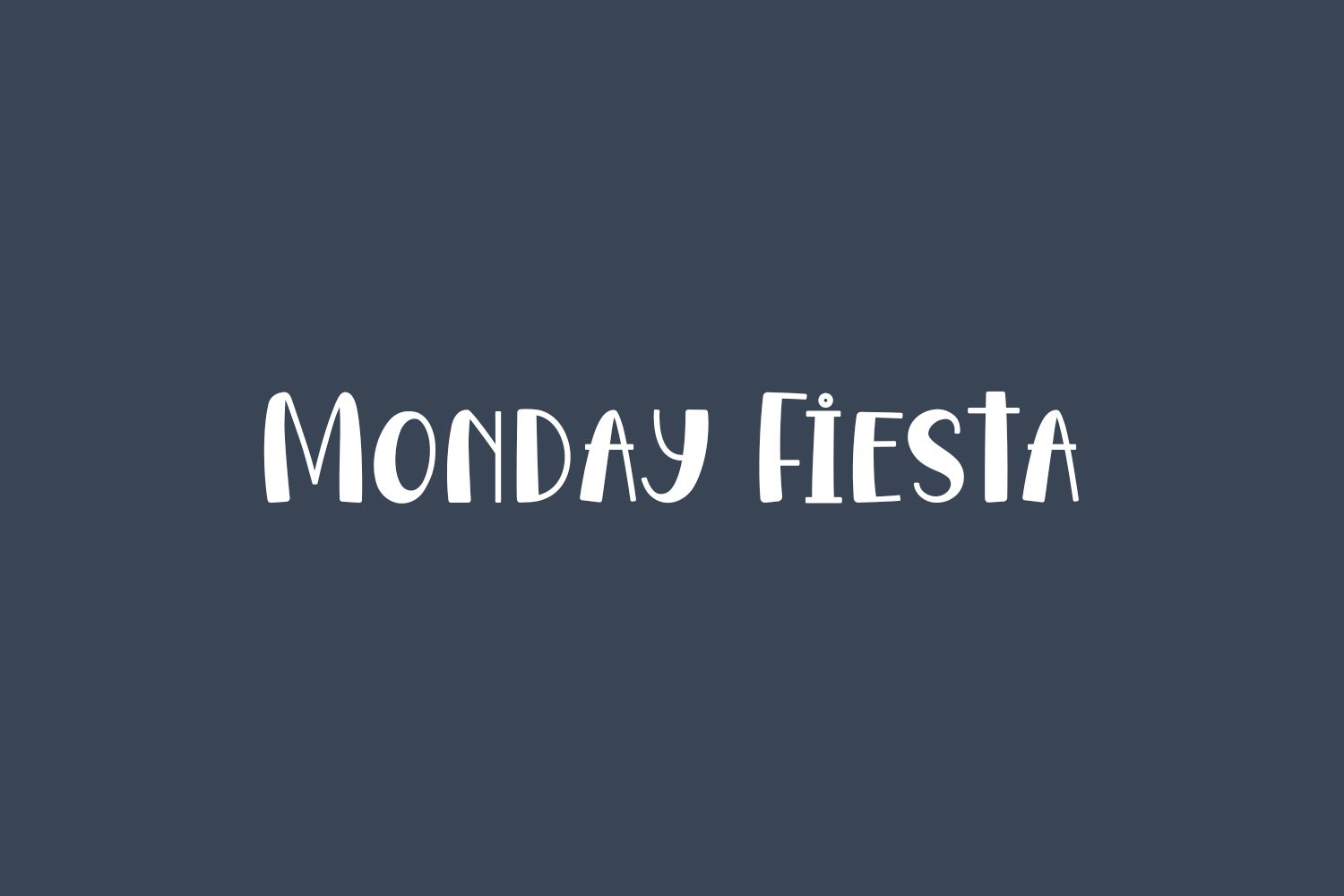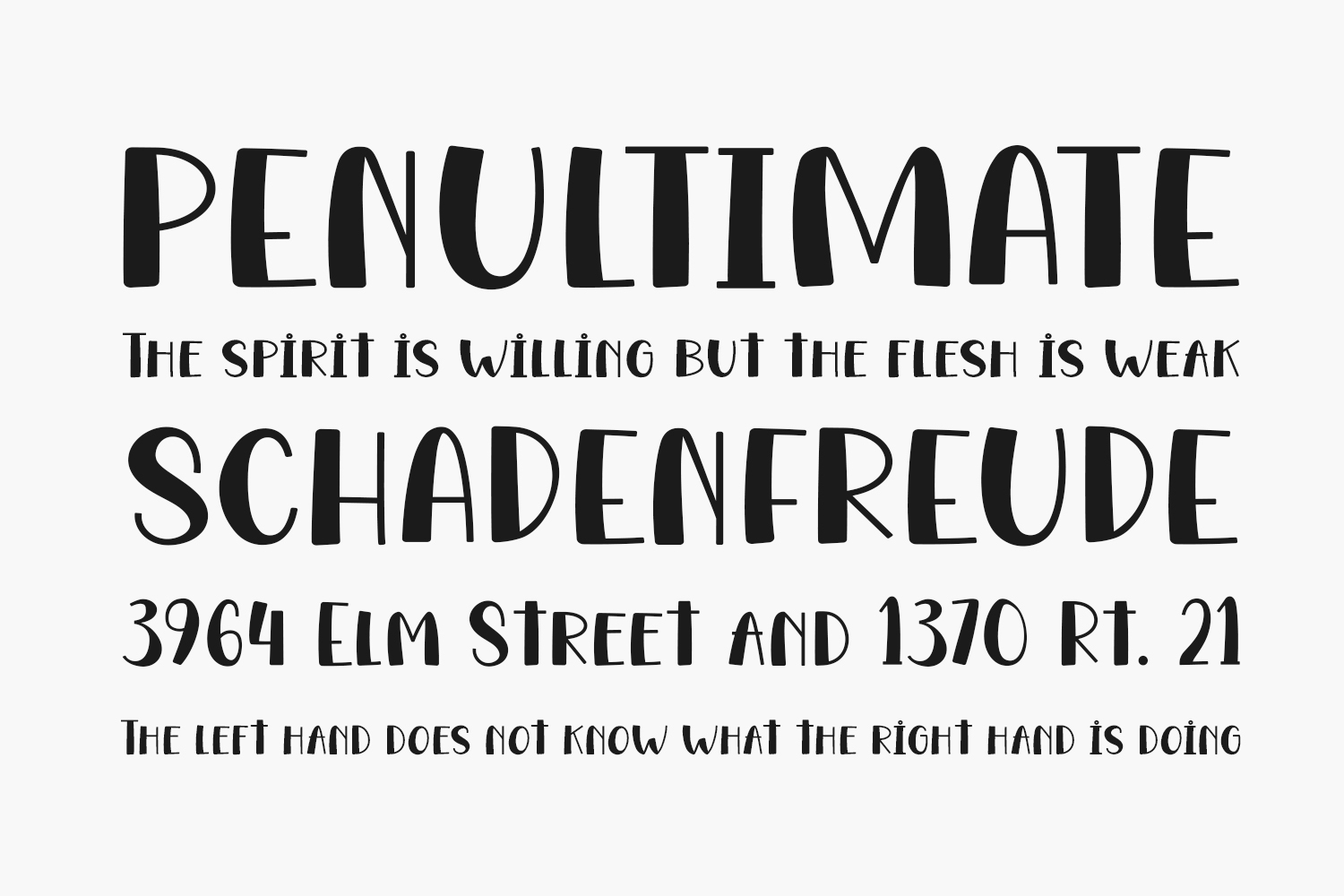
Embrace the joyous spirit of Monday Fiesta Free Font, a delightful display font that exudes a sense of fun and friendliness. Whether you’re engaged in crafting, digital design, presentations, or creating greeting cards, this font holds the potential to become your cherished go-to choice for any occasion! Let Monday Fiesta infuse your projects with its vibrant charm and make every design endeavor a celebration. Monday Fiesta Free Font is free for personal use only. Please purchase the full version for commercial use.